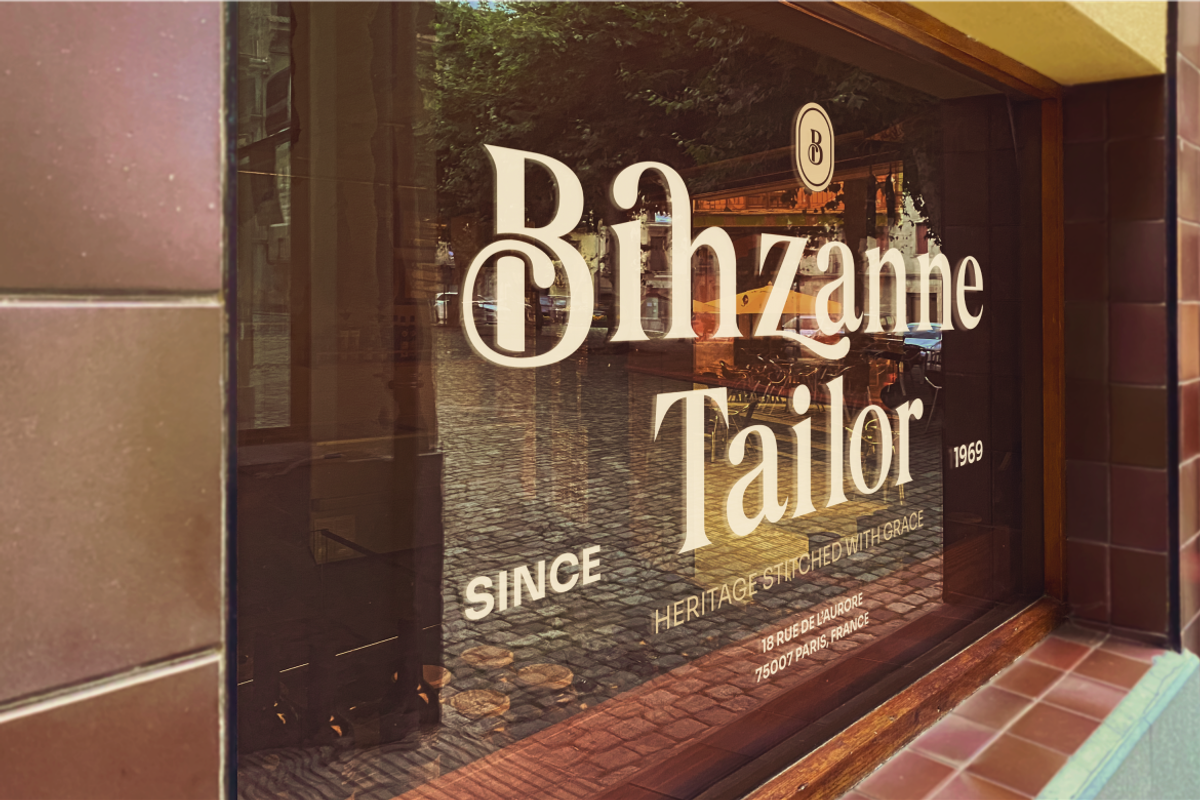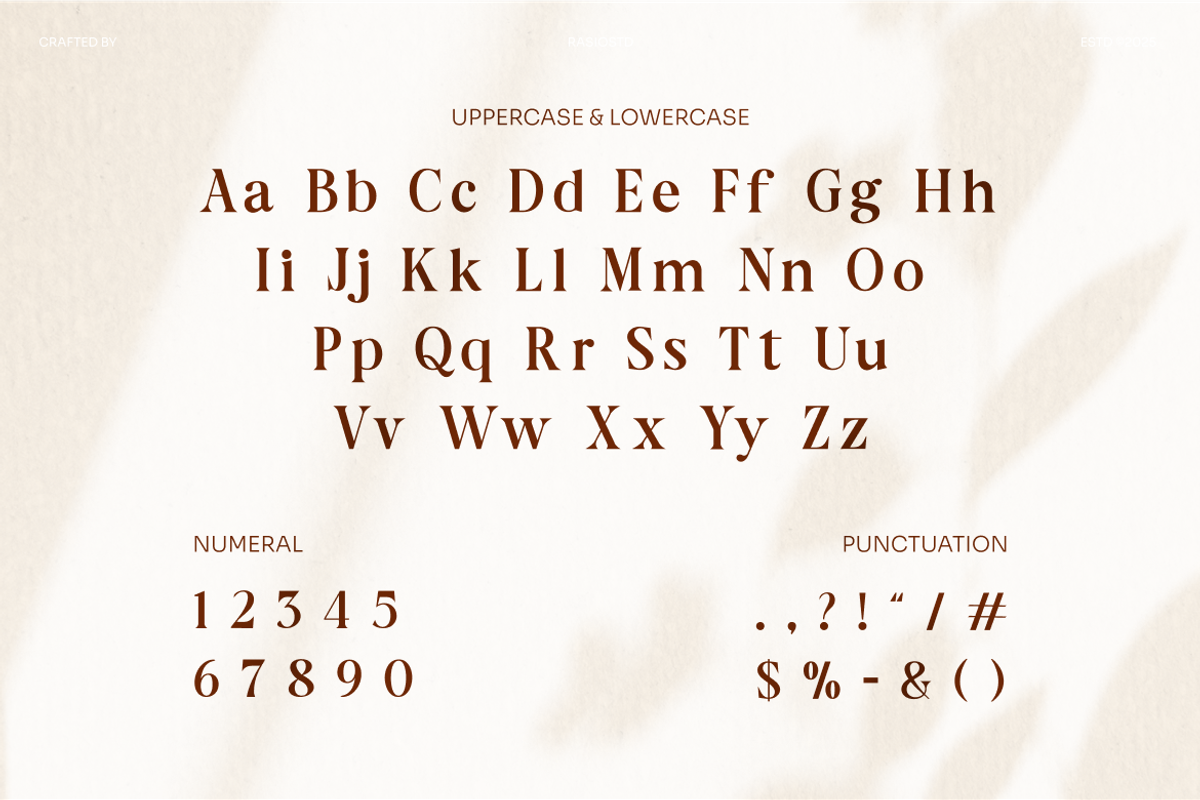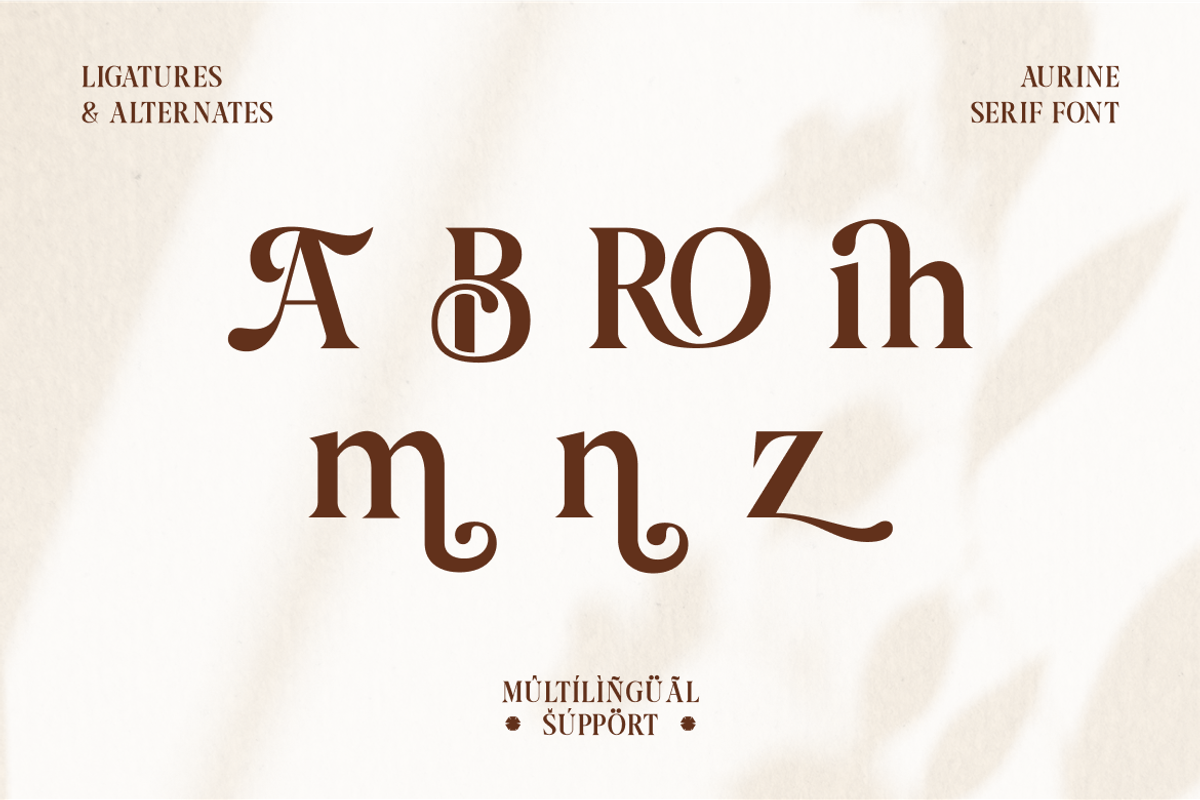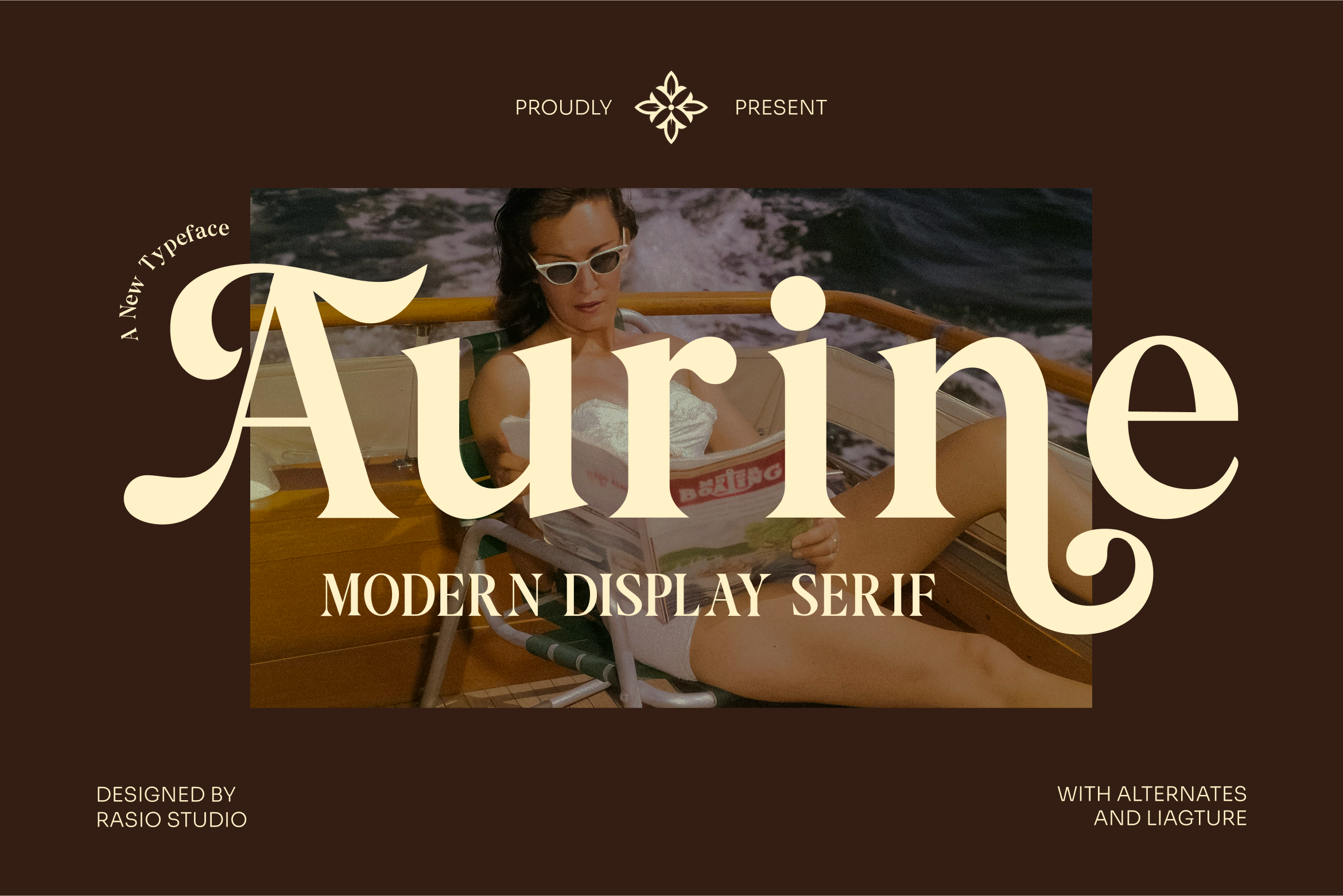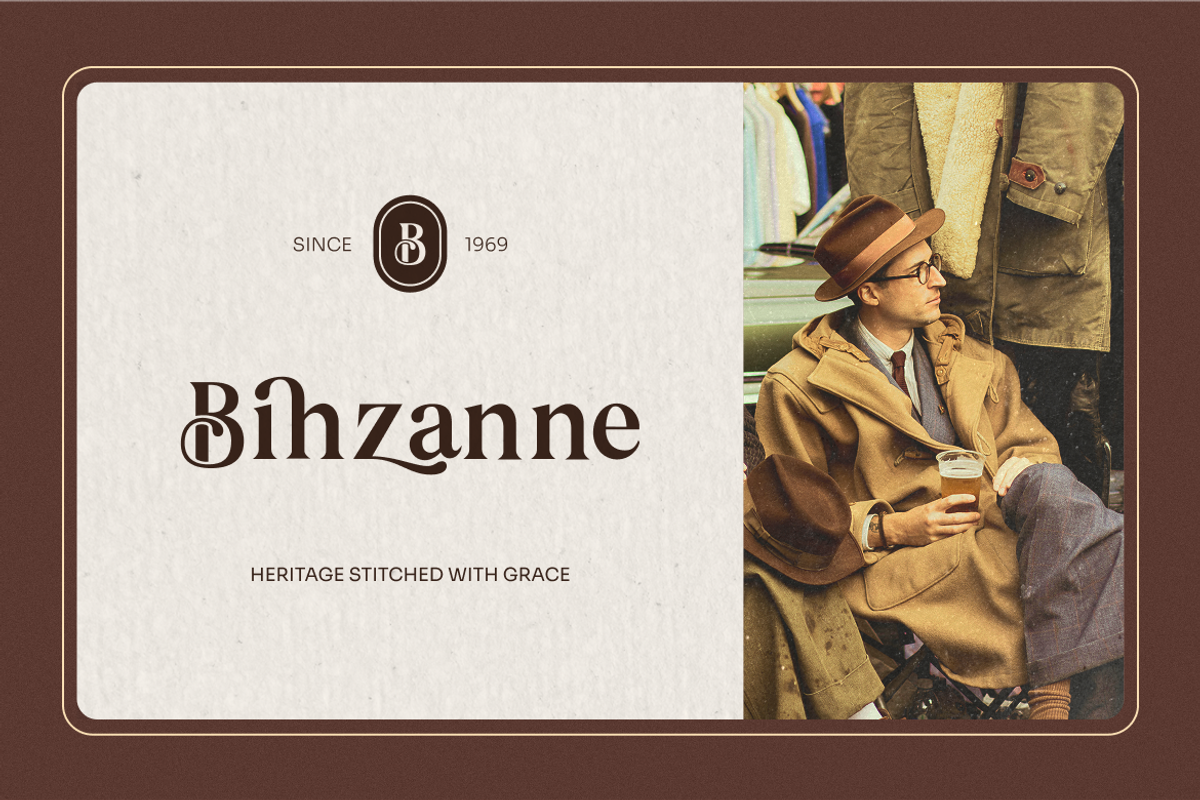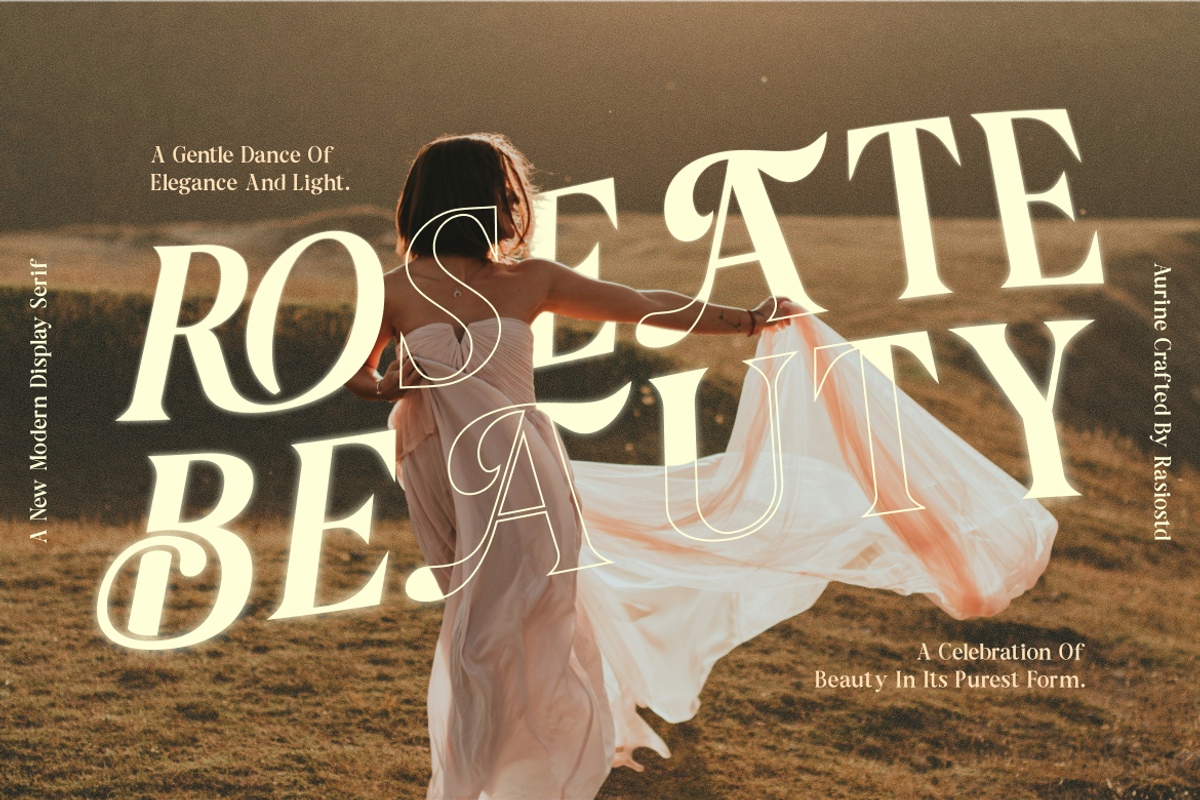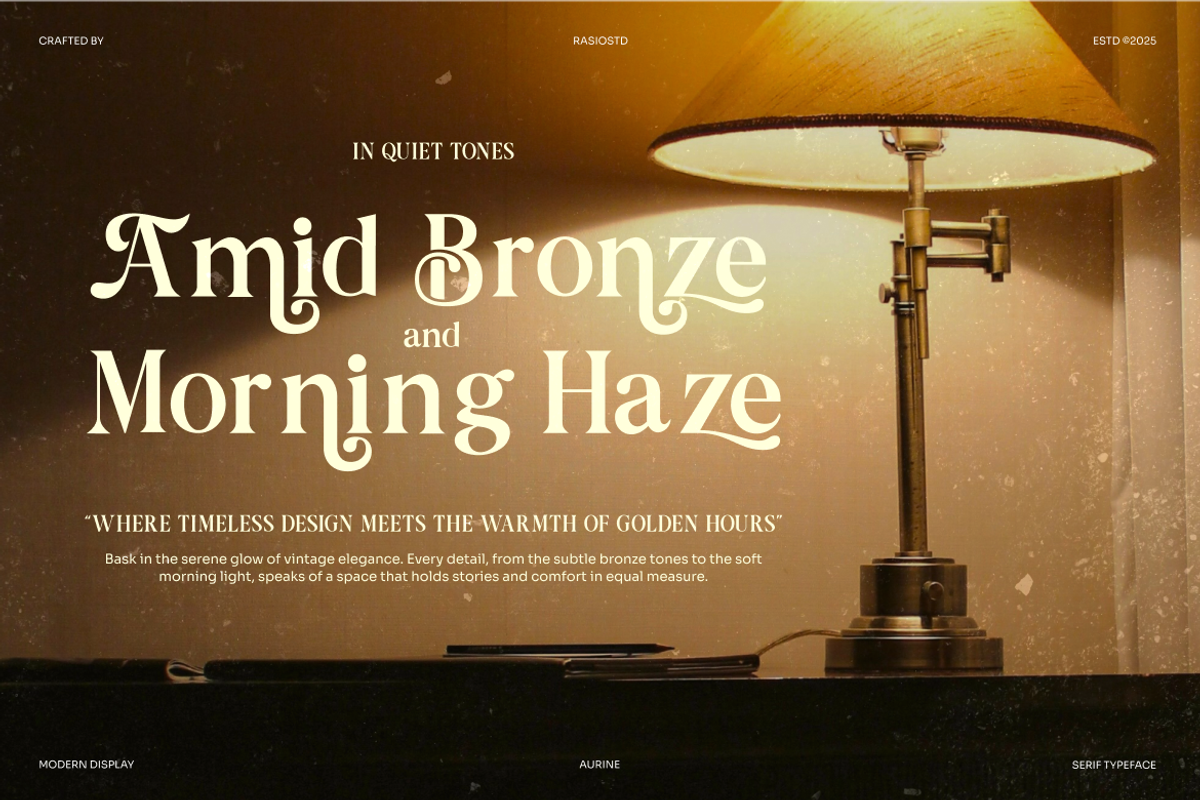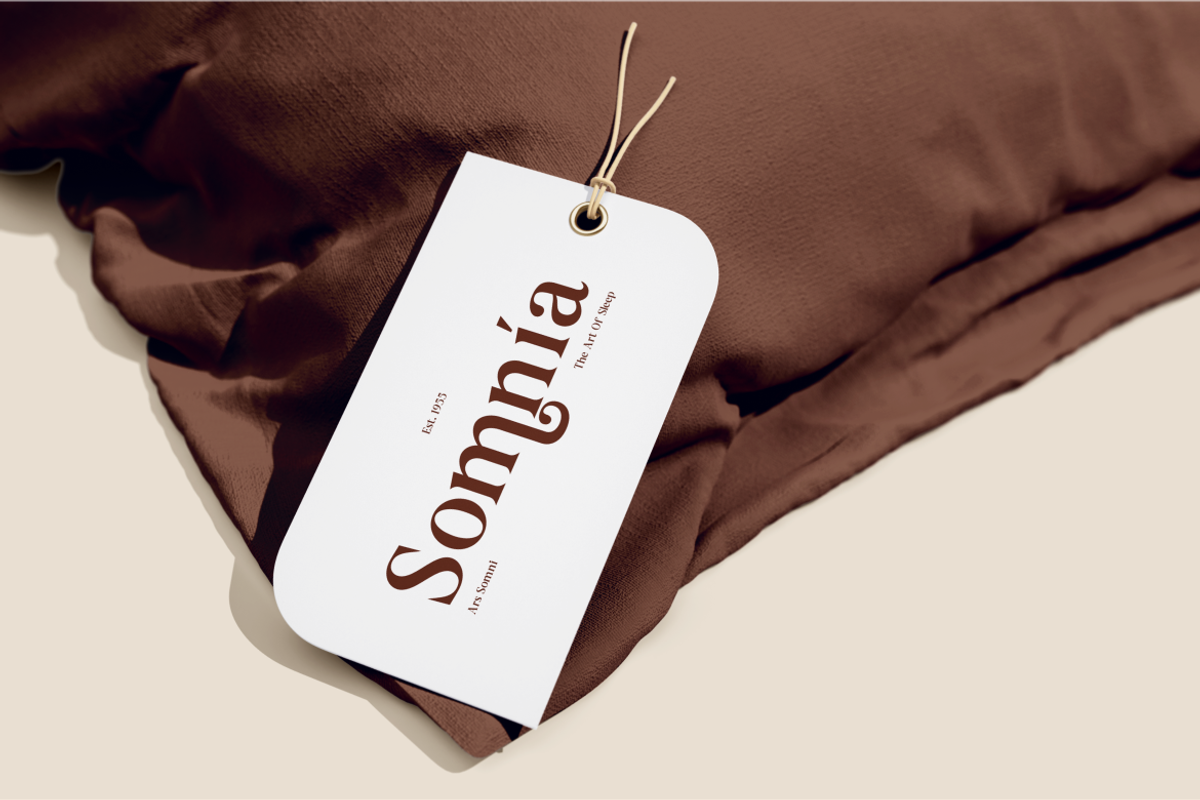
Aurine Modern Display Serif Font
Aurine is a modern decorative display serif typeface that blends refined elegance with expressive character. Aurine brings a sophisticated and artistic presence to any design. The font includes uppercase and lowercase letters, numerals, punctuation, and stylistic alternates/ligatures. Provided in OTF/TTF/Webfont formats with multilingual support, it’s optimized for premium headlines and expressive layouts.
Aurine’s refined yet expressive style makes it ideal for fashion and beauty branding, editorial covers, art‑and‑culture magazines, luxury packaging, wedding stationery, boutique logos, lifestyle blogs, and high‑end social media content. Its decorative terminals and dynamic curves provide visual interest at large sizes, making it perfect for headlines, posters, promotional banners, and event visuals where elevated style and personality are key.
- Modern high-contrast serif structure with classic proportions
- Distinctive decorative flourishes in select uppercase and lowercase
- Elegant curves and strong vertical stress for sophisticated tone
- Balanced x-height and letter spacing for optimal readability
- Includes alternates and ligatures for stylish typographic customization
- Premium branding and identity for luxury fashion, beauty, or lifestyle brands
- Magazine covers, editorial spreads, and high-end lookbooks
- Wedding invitations, event stationery, and romantic typographic compositions
- Product packaging and label design for boutique or artisanal goods
- Hero headers, website banners, and social media graphics with an elegant flair
Aurine where sophistication meets statement make every word iconic